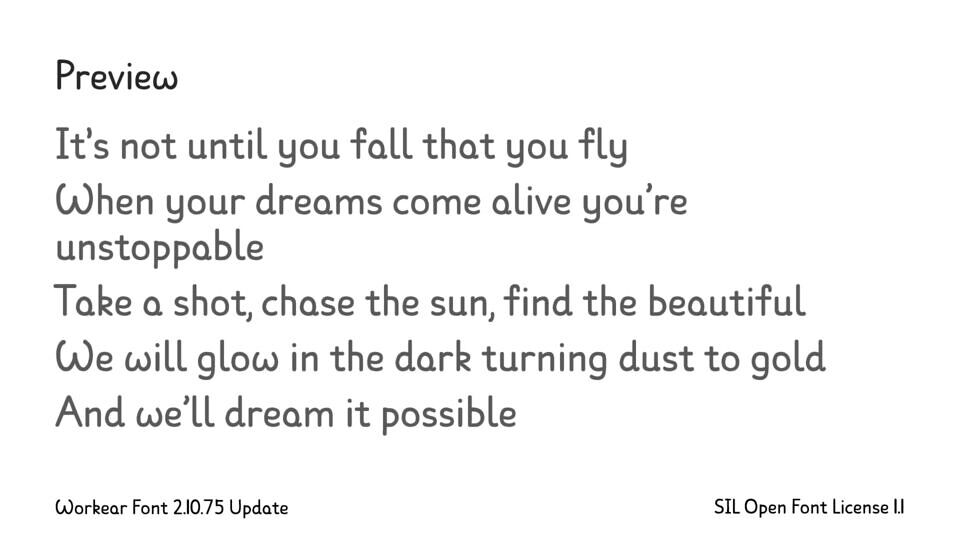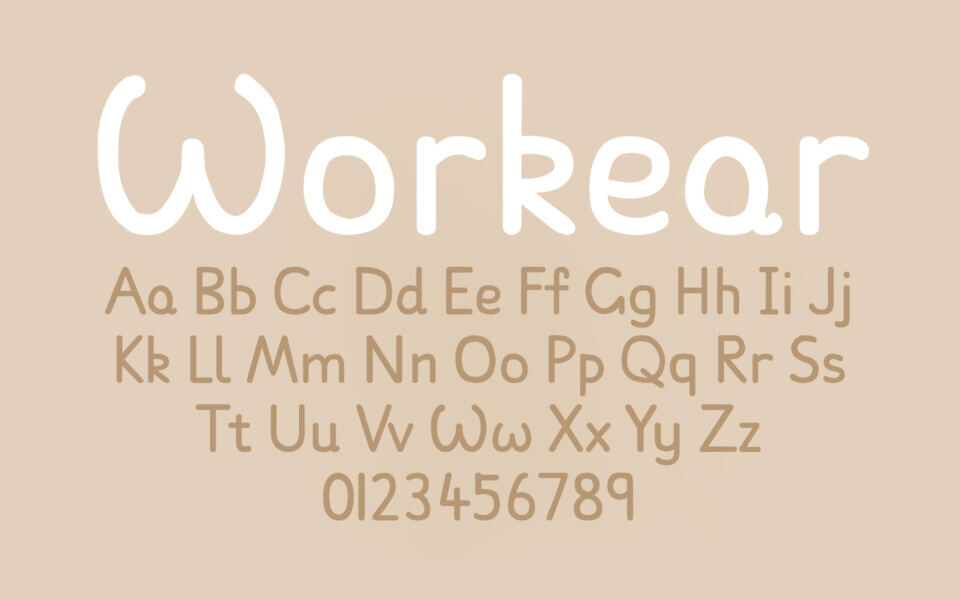
Workear Font
Workear is a light, handwritten-style font featuring soft, rounded letterforms that convey warmth and approachability. Its gentle curves and friendly design create a welcoming, charming aesthetic, ideal for projects requiring a personal touch.
Workear is perfect for children’s books, greeting cards, playful branding, and creative designs, Workear enhances emotional appeal and adds sincere character to any work. Released under the SIL Open Font License, this versatile typeface combines simplicity and charm, making it a go-to choice for designers seeking a cute, approachable, and expressive font.